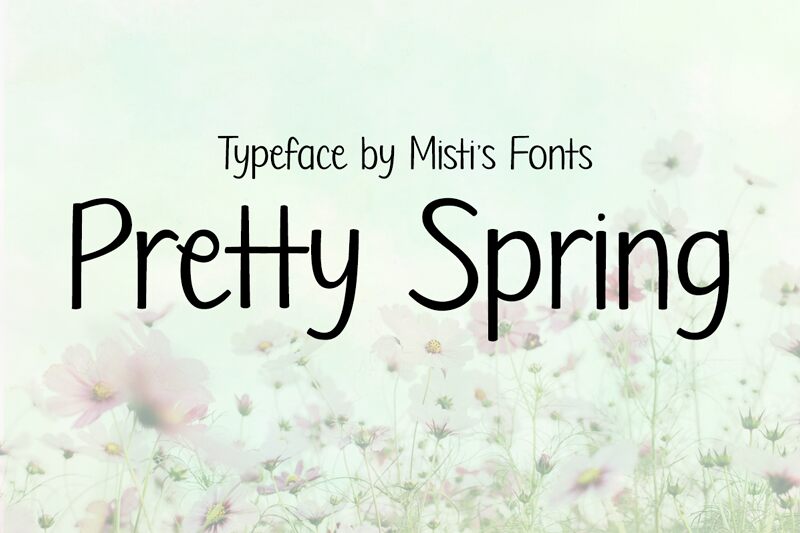
Pretty Spring
Pretty Spring is a cute handwritten font full of charm and whimsy. Perfect for invitations, quotes, branding, and more, it adds a touch of warmth and personality to any project. Let your designs bloom with the cheerful spirit of Pretty Spring!